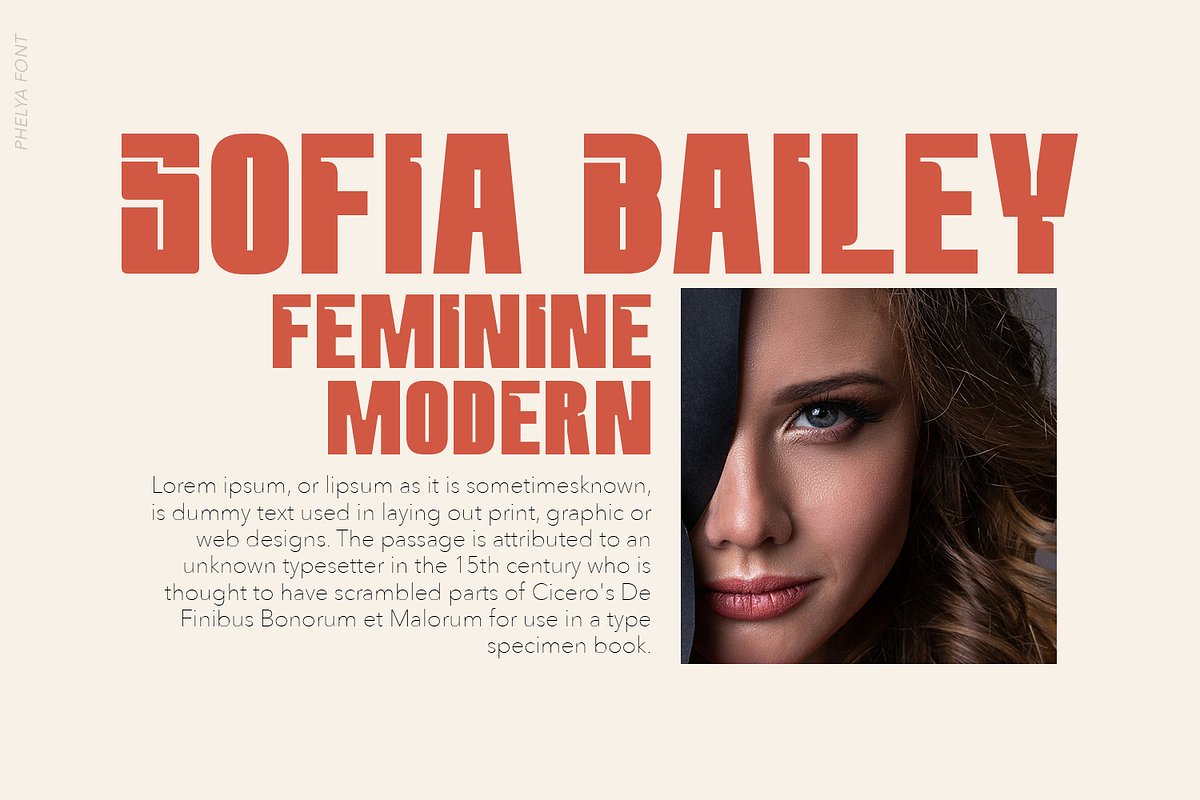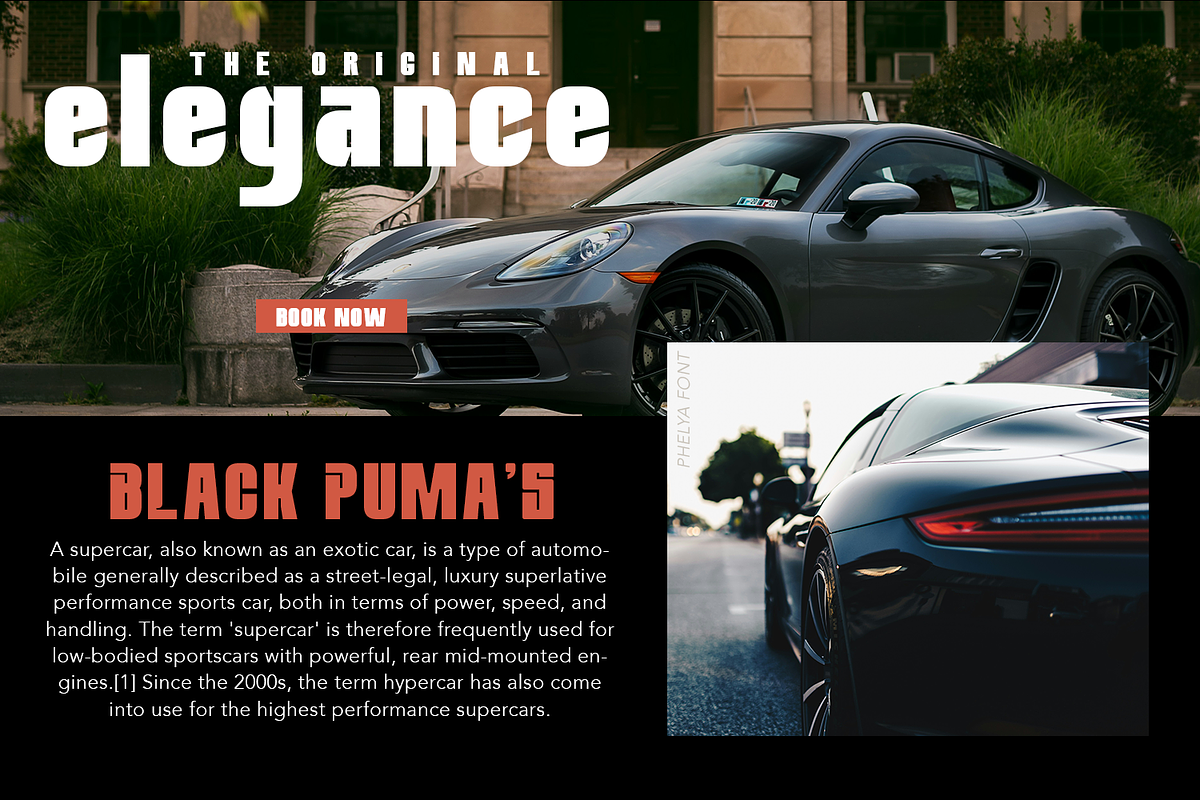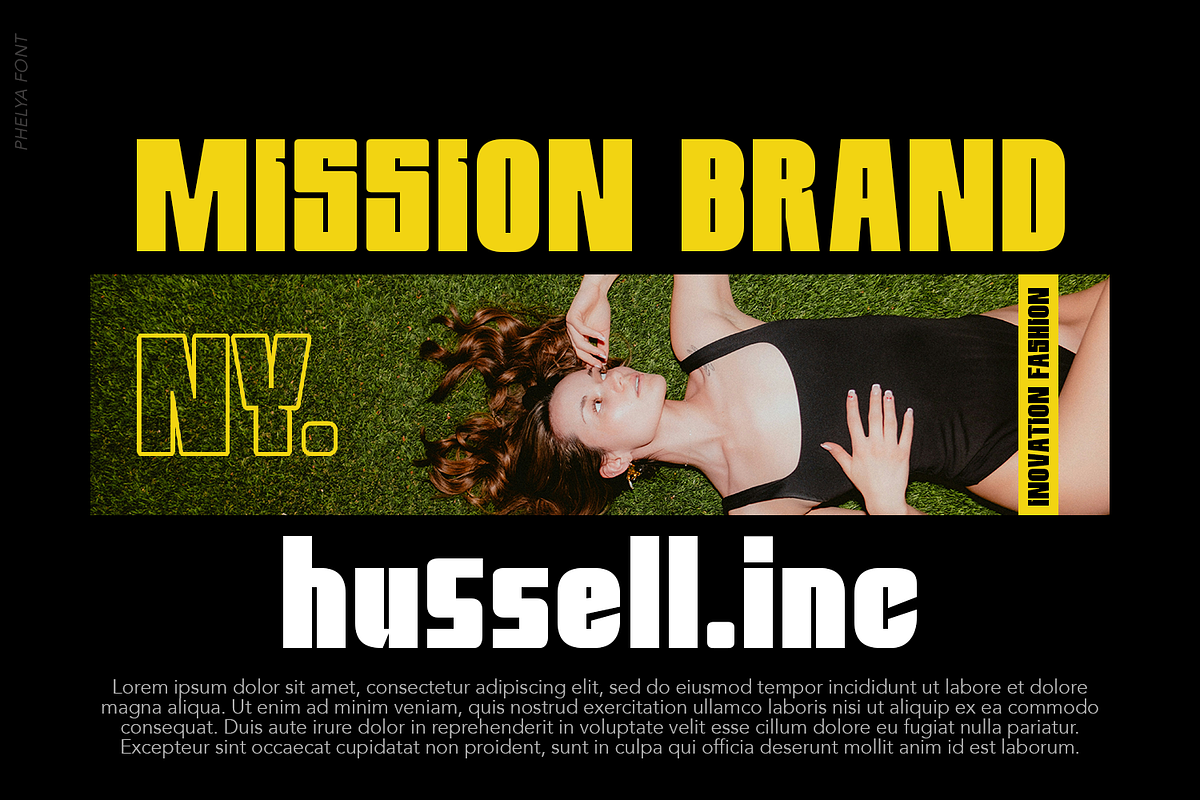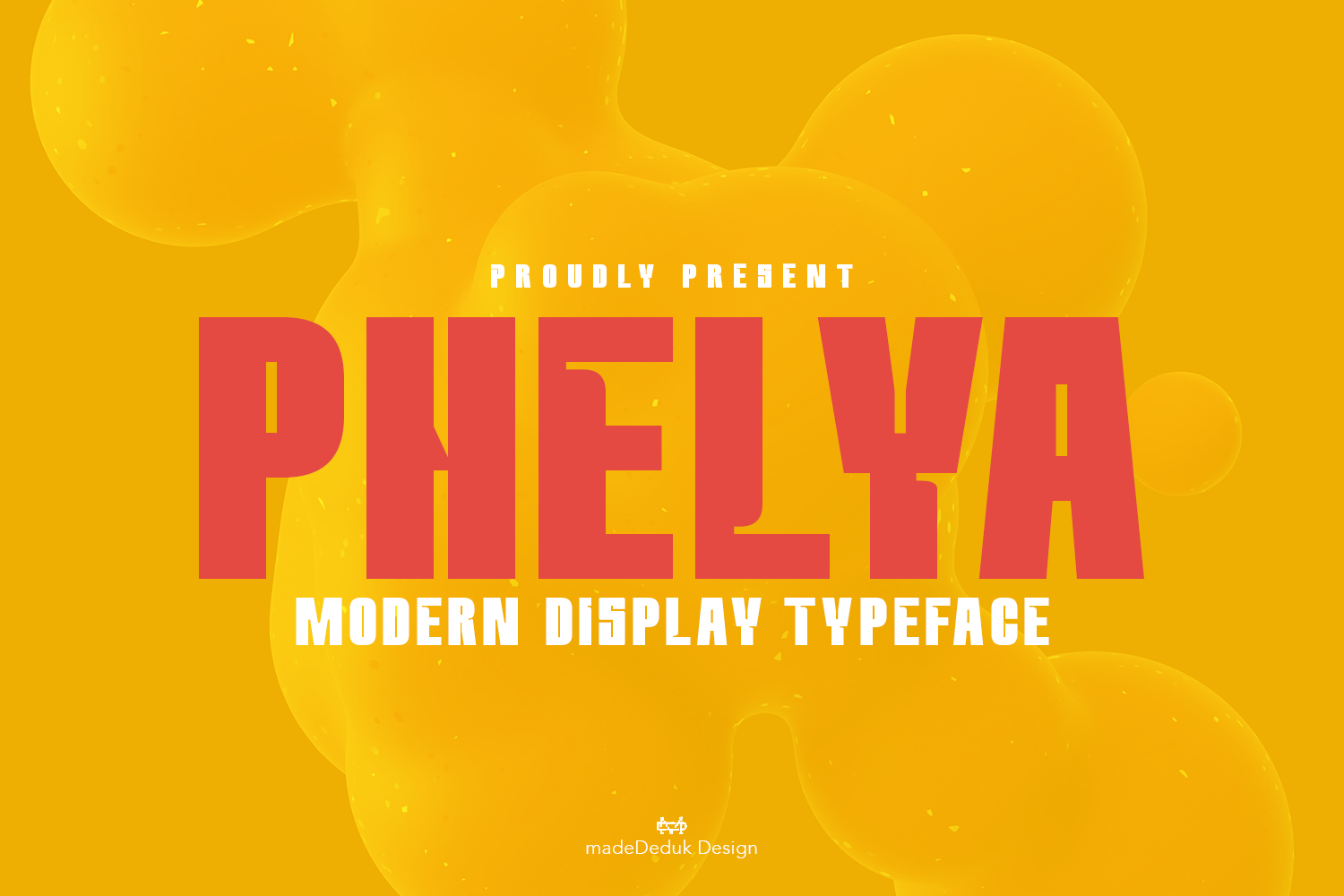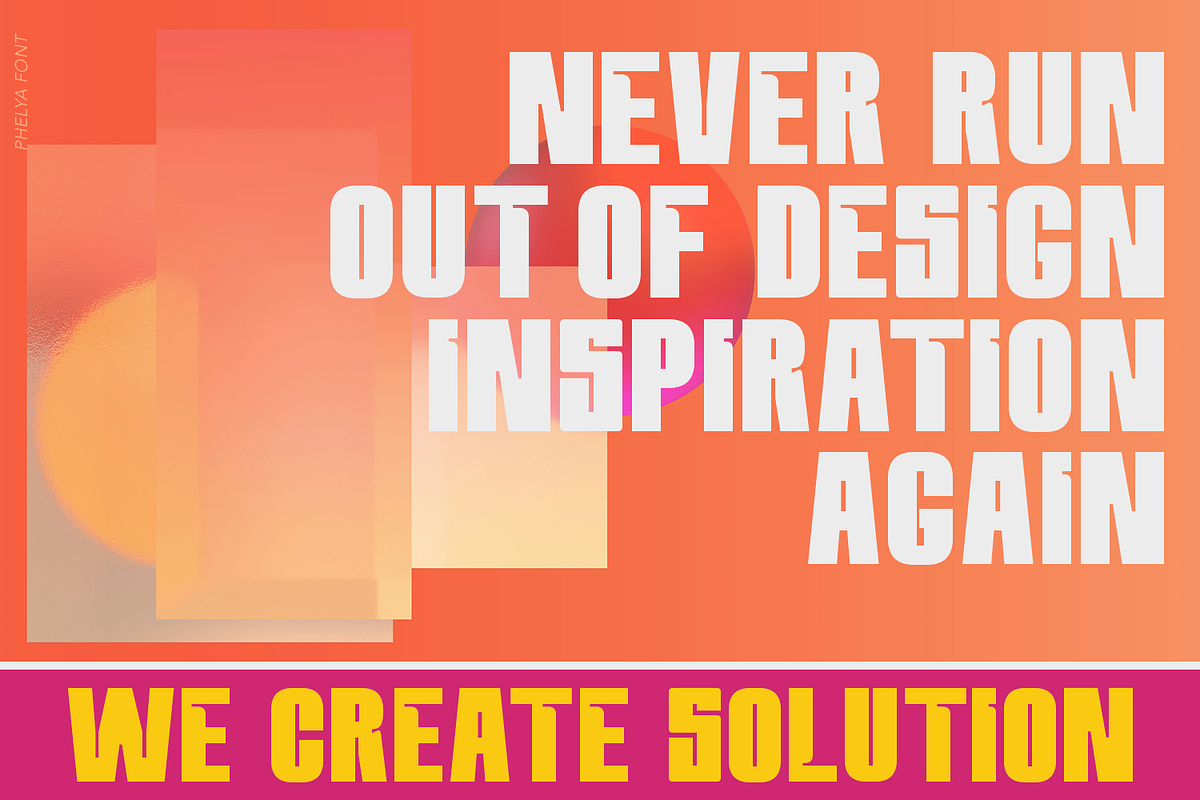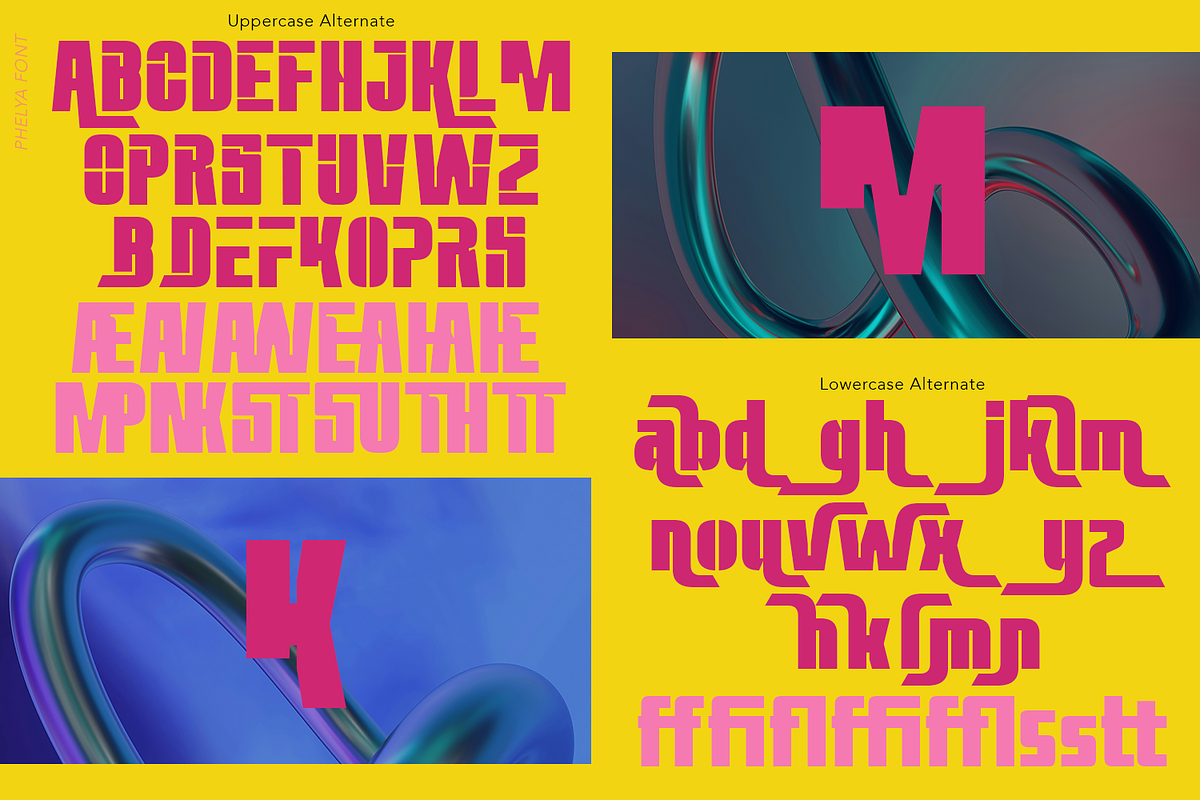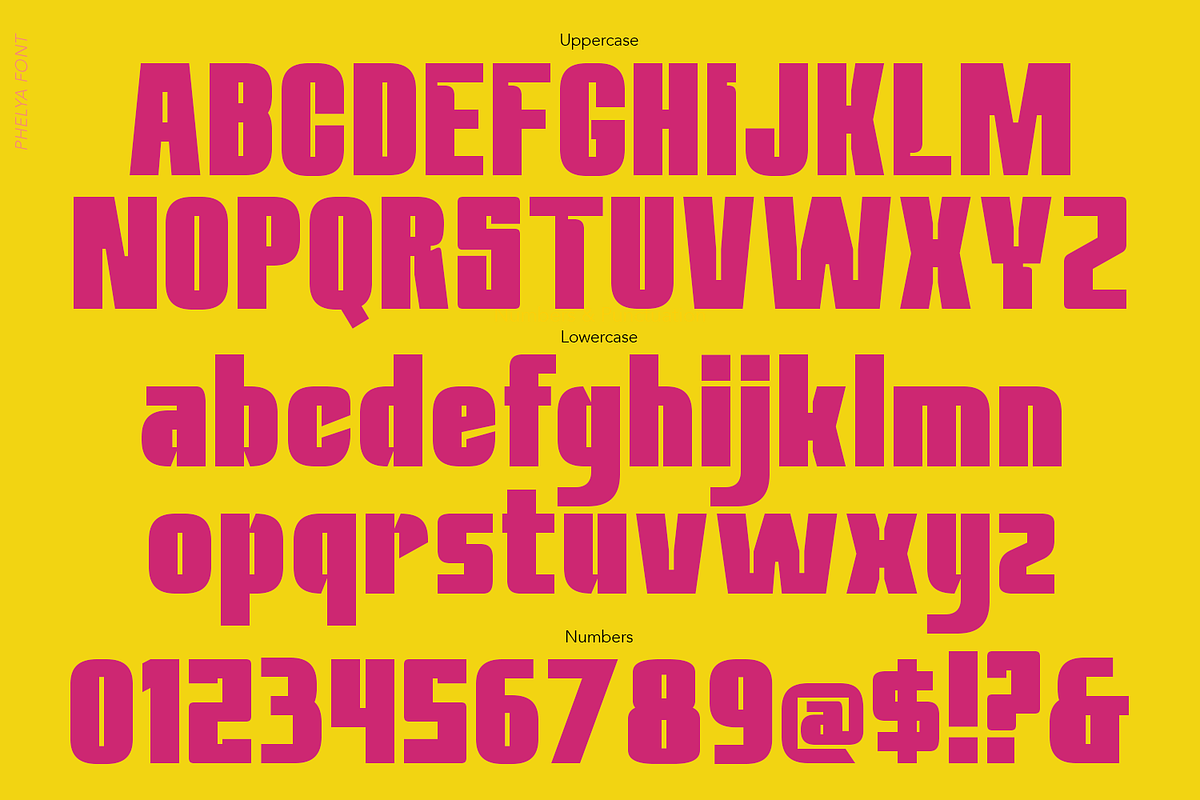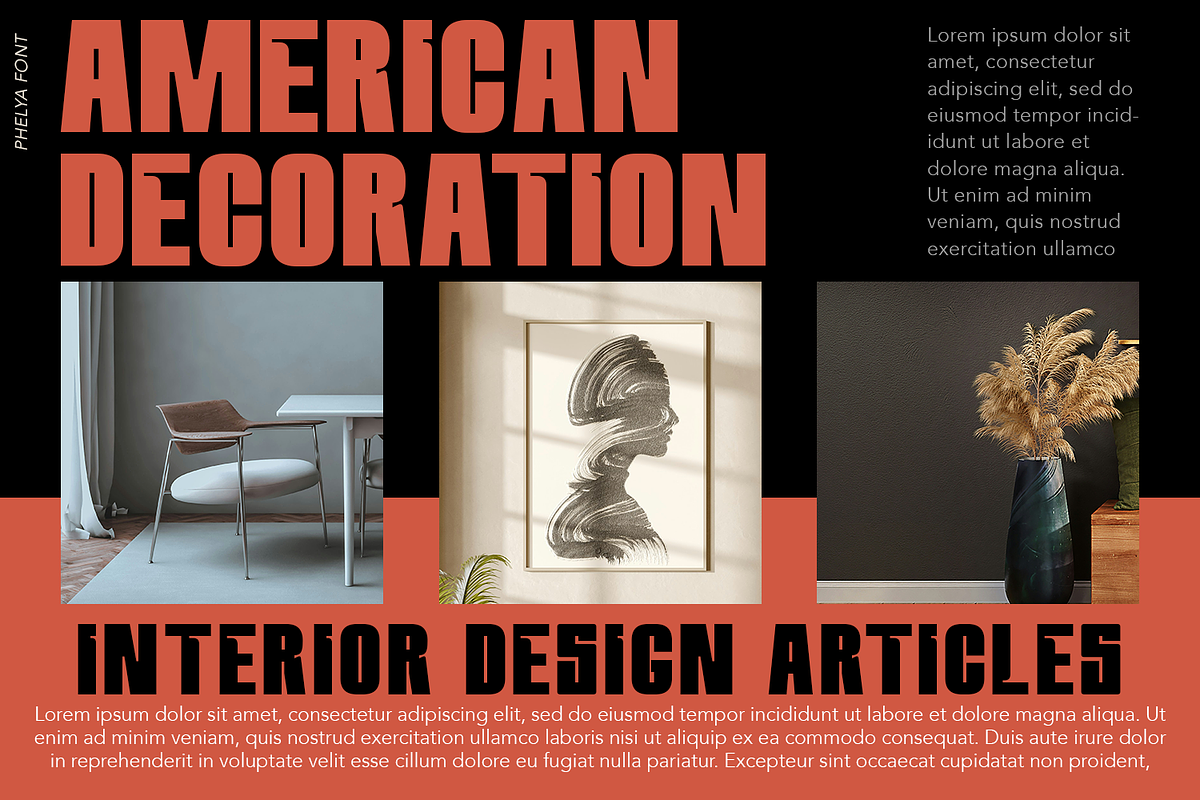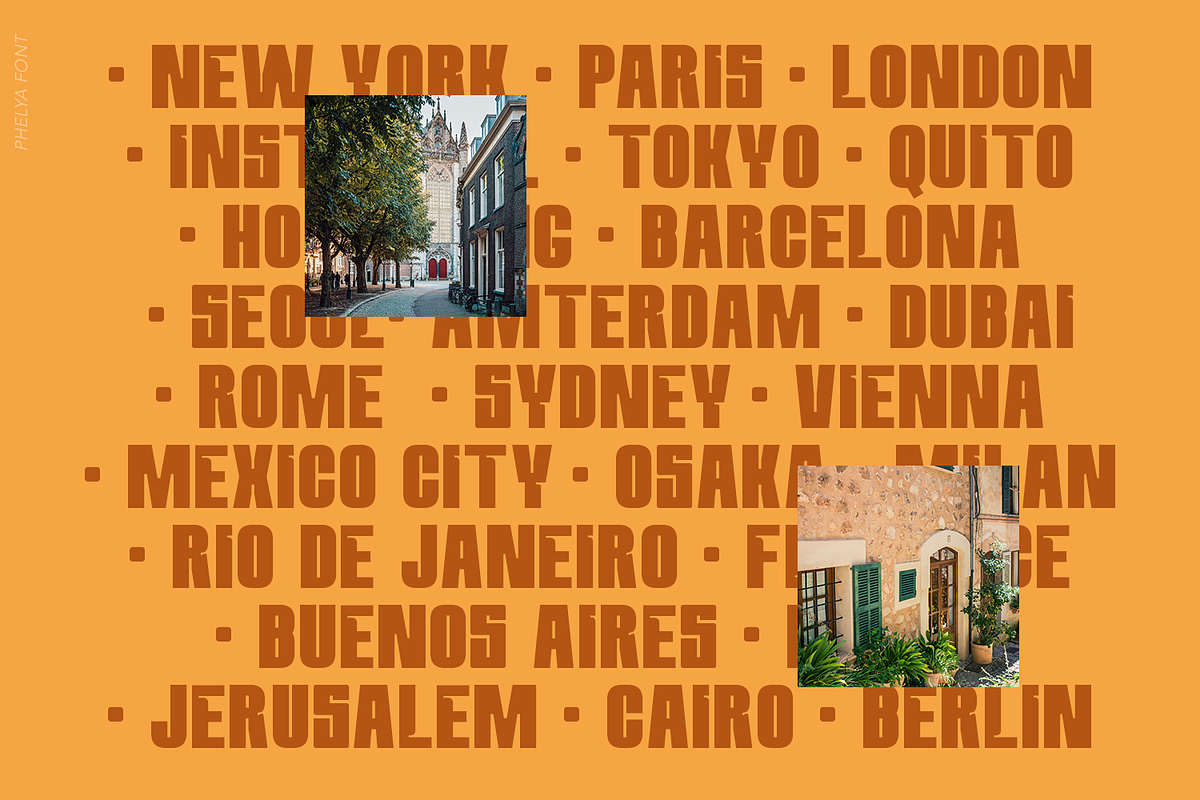
Phelya Display Font
Phelya is a modern display font, come with single weight, legible and expressive shapes. A lot of stylish alternates characters will makes this font suitable for your any project design.
- International Glyphs